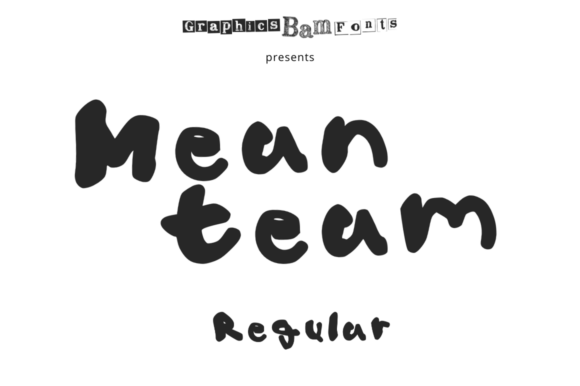
Behold, the awe-inspiring Mean Team Regular Font, a typographic masterpiece crafted by the visionary minds at GraphicsBam Fonts. This modern display font possesses an indomitable spirit, ready to unleash a torrent of creativity upon your digital canvases.
Immerse yourself in its bold and playful personality, perfect for injecting a spark of whimsy into your designs. Let your imagination run wild as you explore its diverse range of applications, from eye-catching headlines that demand attention to captivating logos that leave a lasting impression.
Mean Team Regular Font is not just a font; it's an artistic chameleon, effortlessly adapting to your every need. Its sturdy structure and unwavering consistency make it an ideal choice for web pages, where clarity and legibility reign supreme. Unleash your inner artist and craft stunning compositions that dance across the screen, captivating your audience with their visual allure.
But wait, there's more! This typographic gem is brimming with a vast array of glyphs, each meticulously designed to ignite your creativity. Mix and match them with abandon, creating unique and captivating designs that set you apart from the ordinary.
Embrace the power of Mean Team Regular Font and watch as your creative visions materialize before your eyes. Its versatility knows no bounds, making it the perfect companion for a multitude of projects. From branding and marketing materials that exude confidence to social media posts that pop with personality, this font is your secret weapon to leave an indelible mark on the digital landscape.